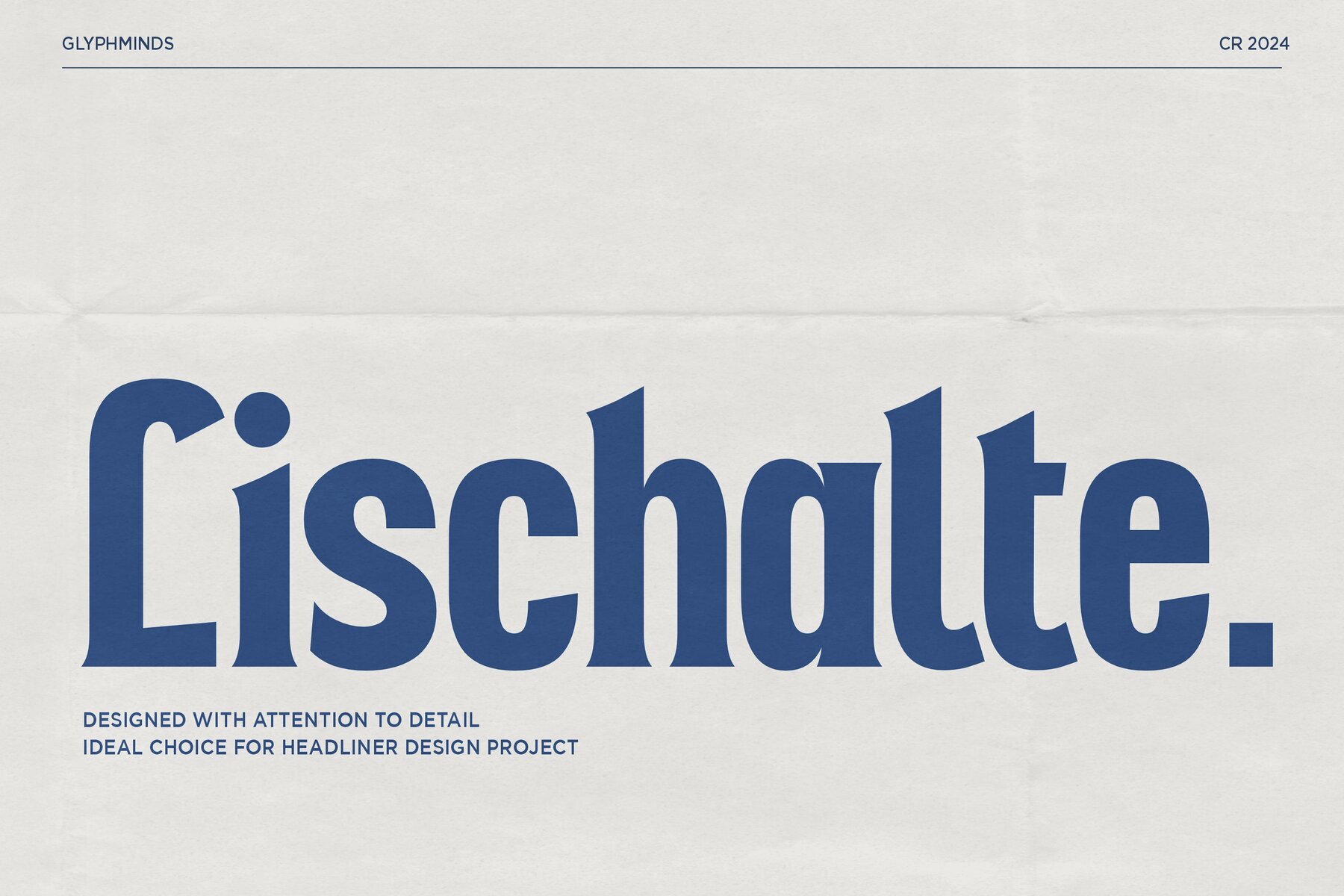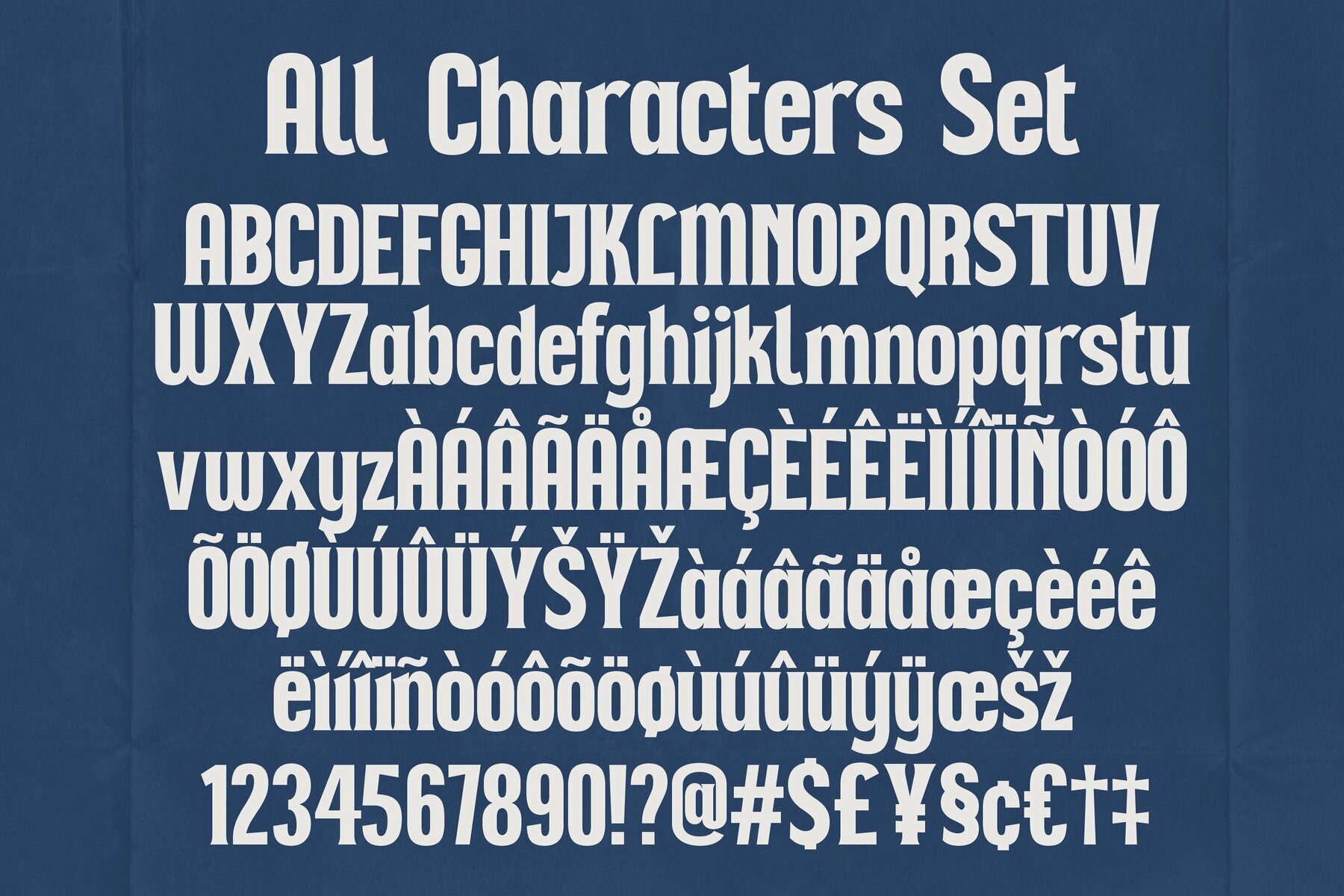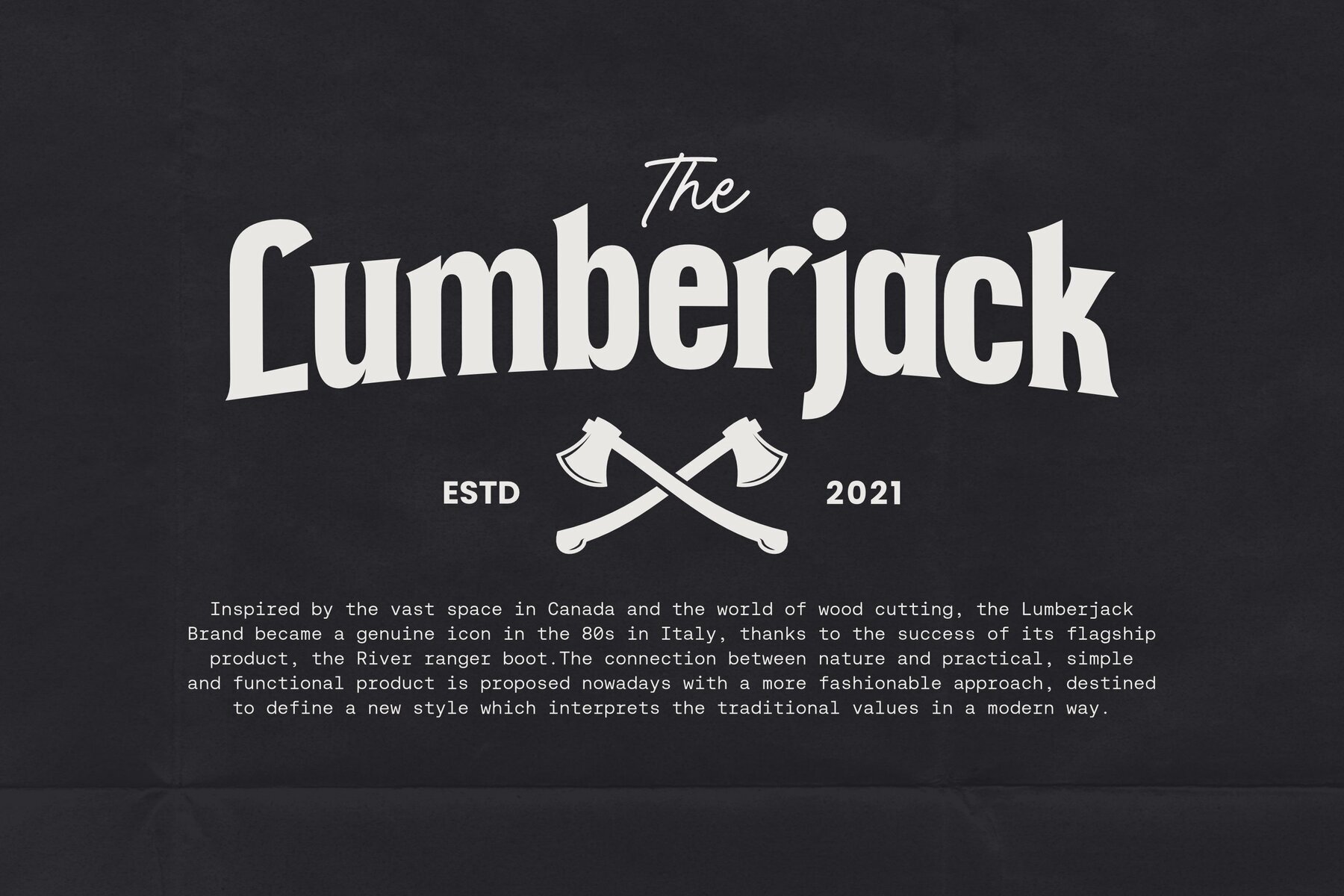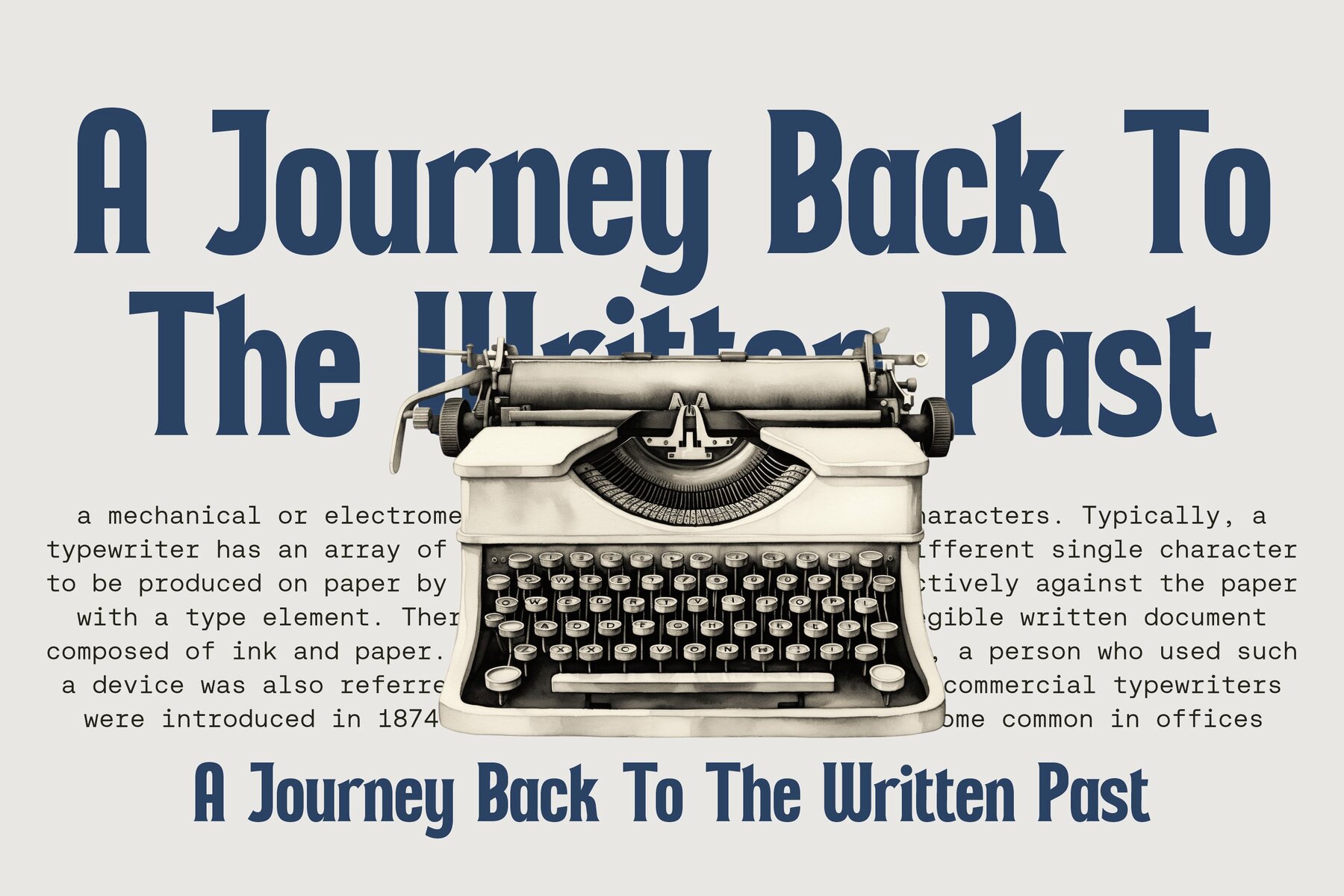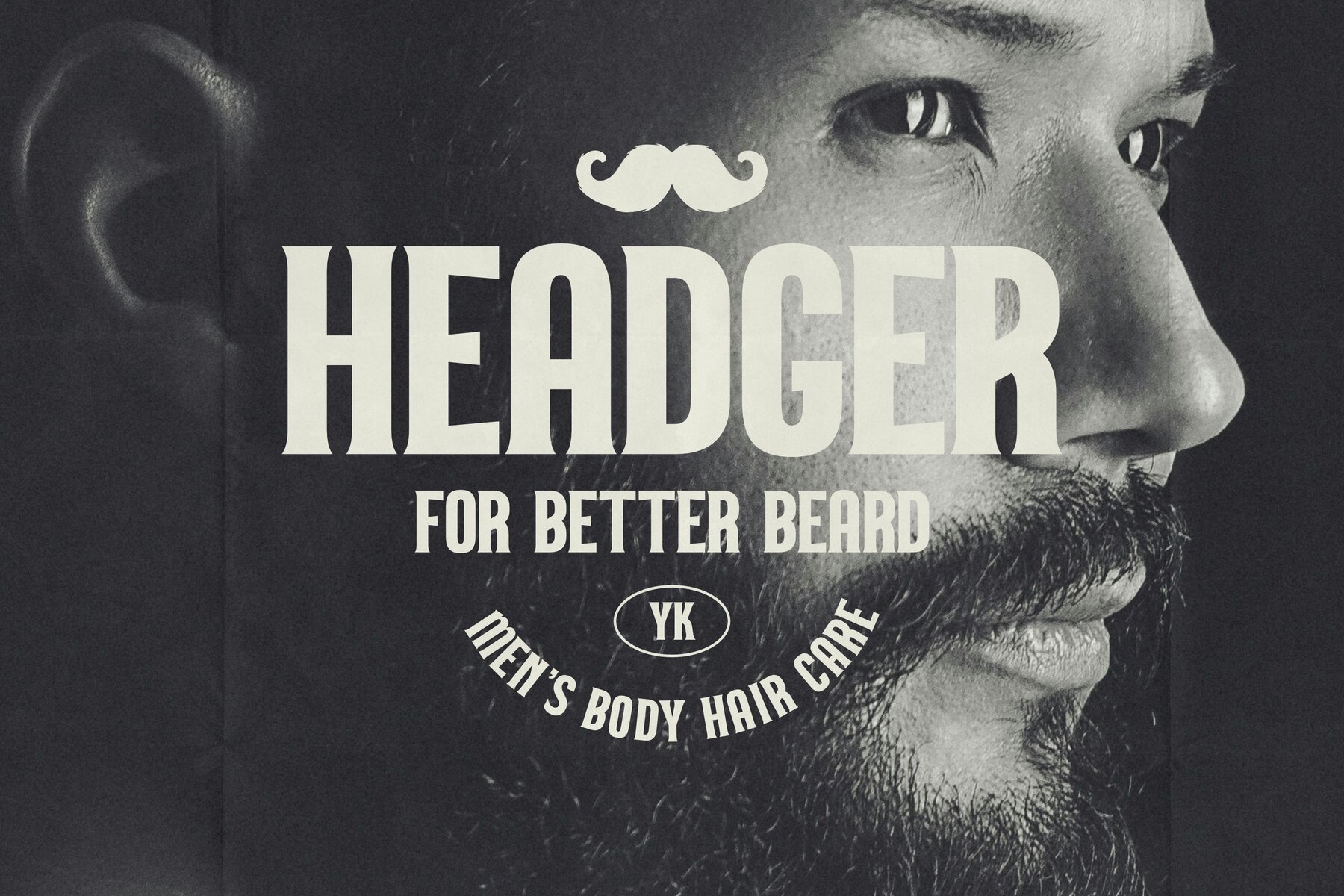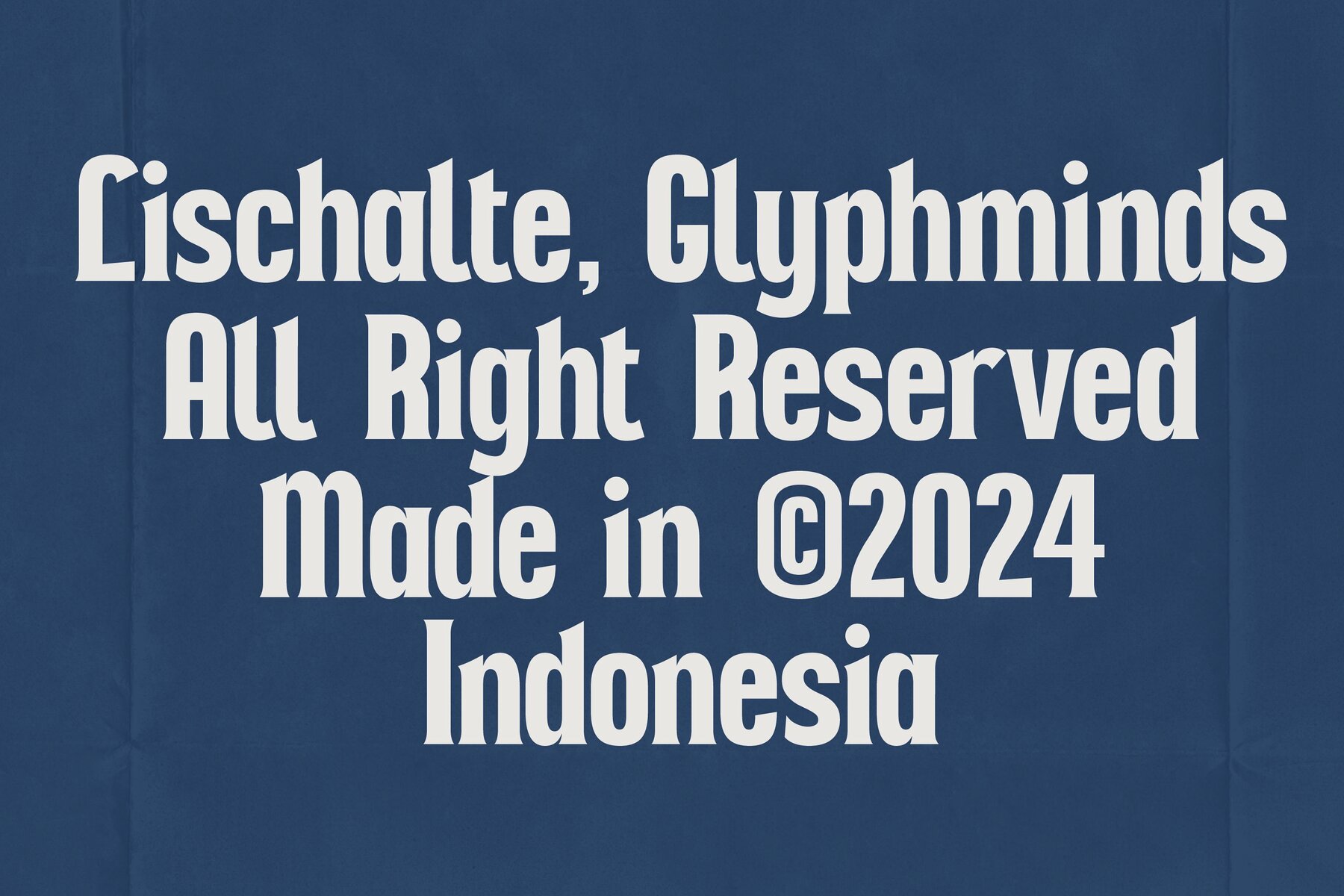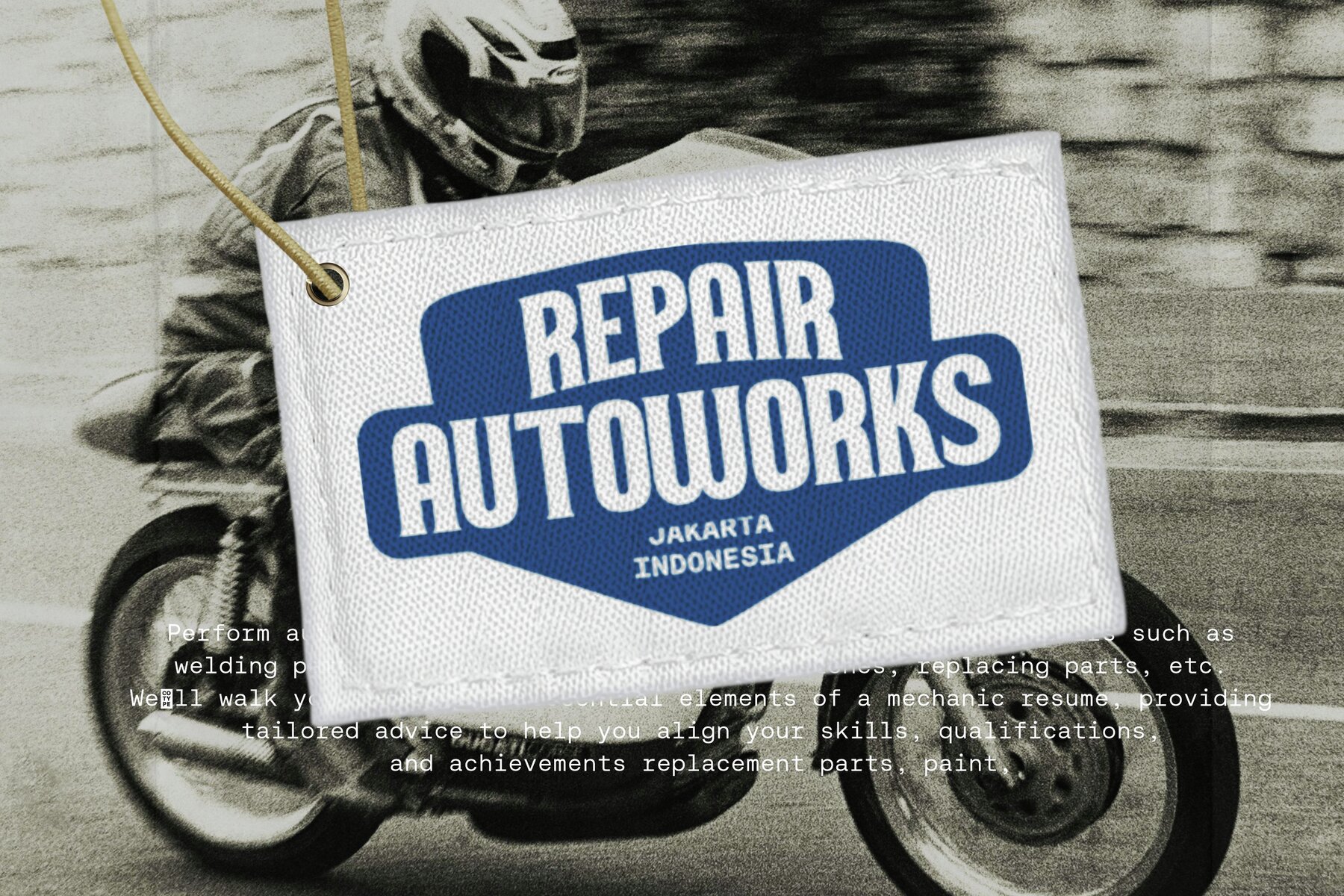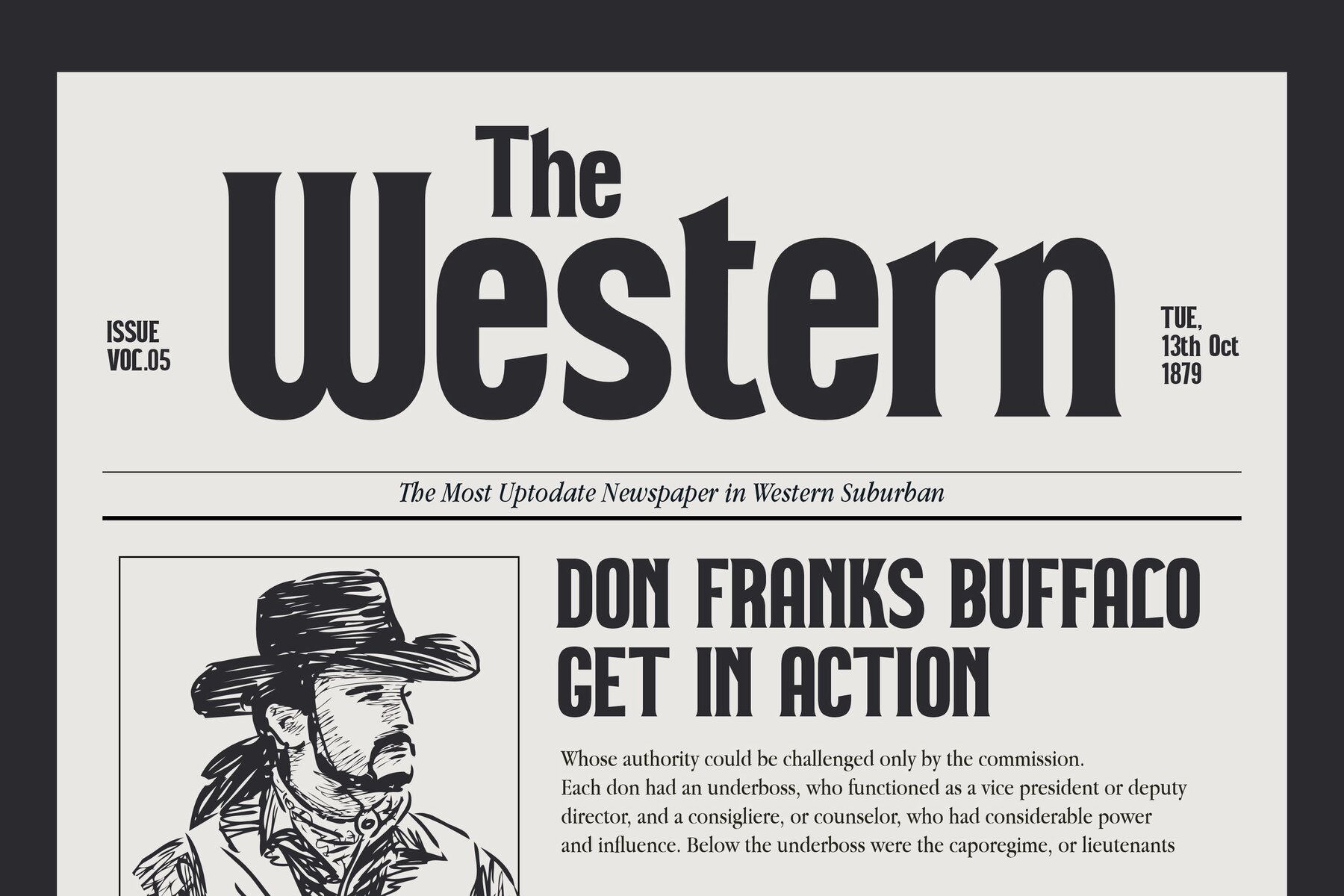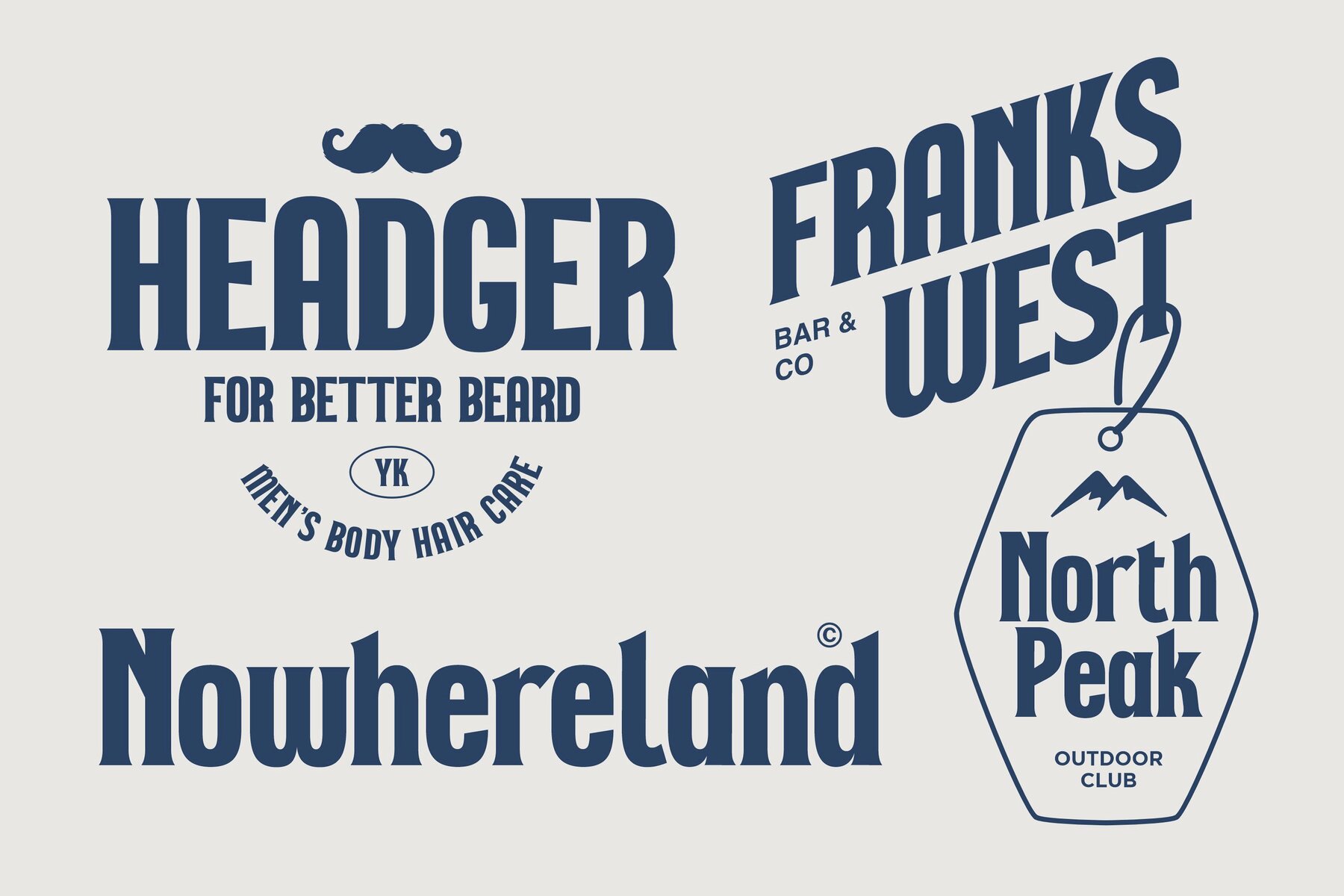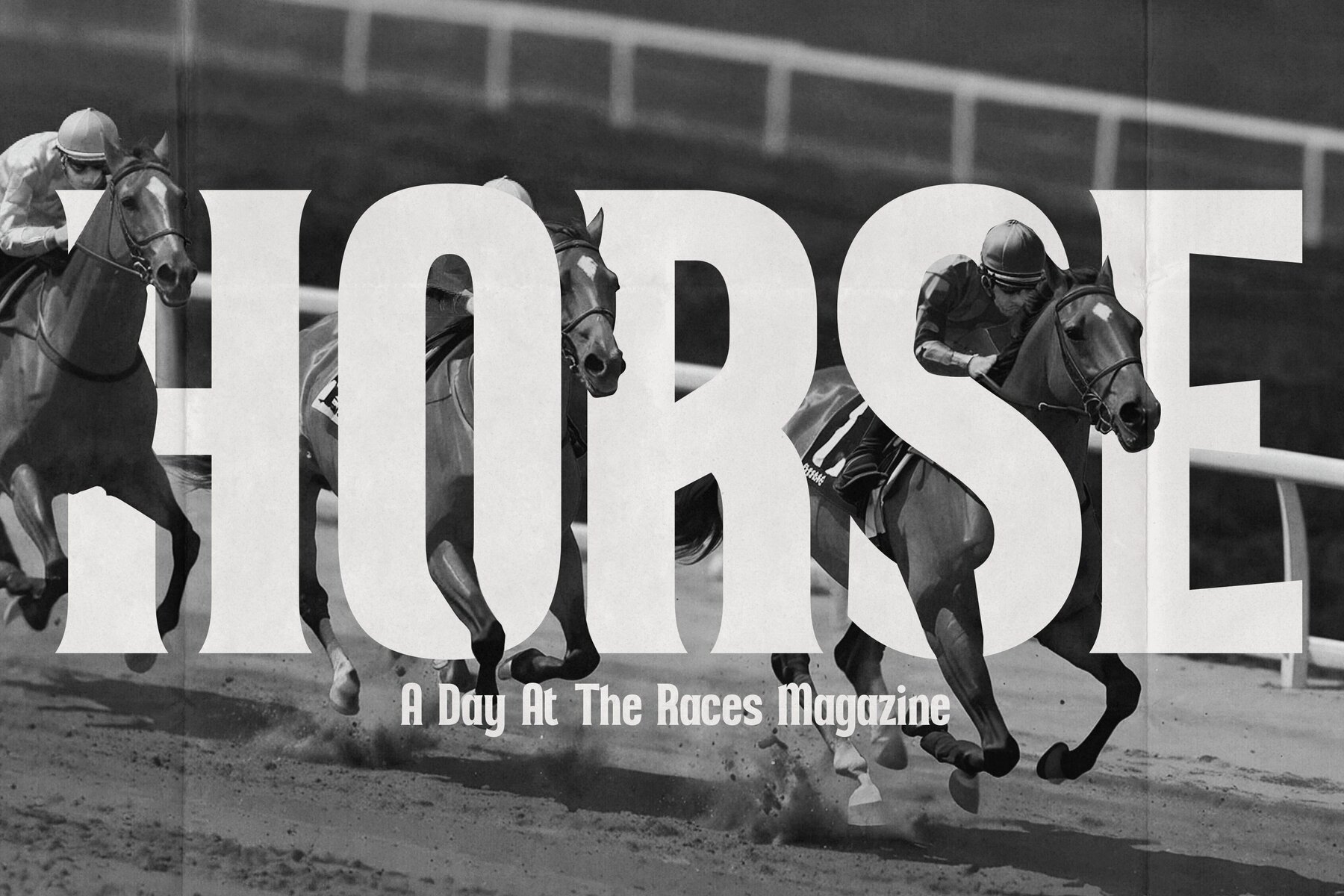
Lischalte Font
Lischalte Regular
Lischalte is a meticulously crafted typeface that seamlessly marries elegance with strength, making it an ideal choice for impactful headlines and branding projects. Featuring classic curves paired with modern edges, Lischalte offers a distinct personality that enhances any design it graces. This versatile font excels in a range of applications, from magazine covers and posters to branding assets, ensuring your message is delivered with both authority and style.
Its bold appearance and unique character make Lischalte stand out in the crowded arena of design elements. Whether your project demands a touch of sophistication or a powerful statement, Lischalte rises to the occasion. With this typeface, every word is designed to make a significant impact, allowing your creative vision to shine through effortlessly.